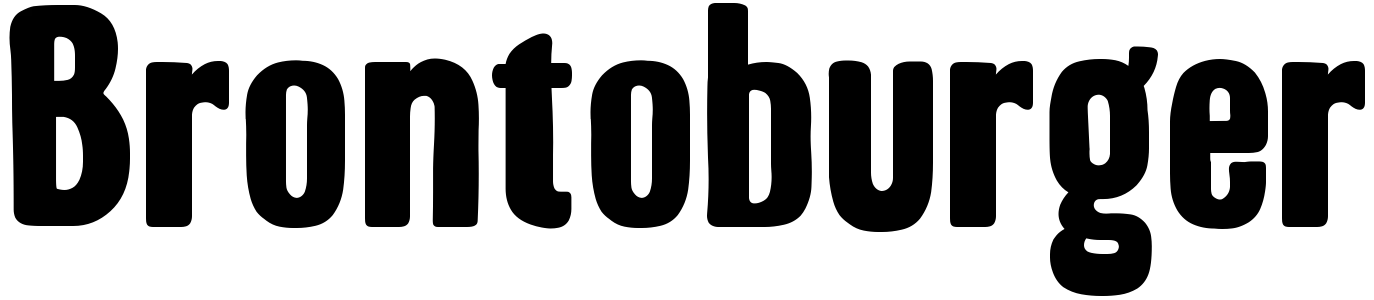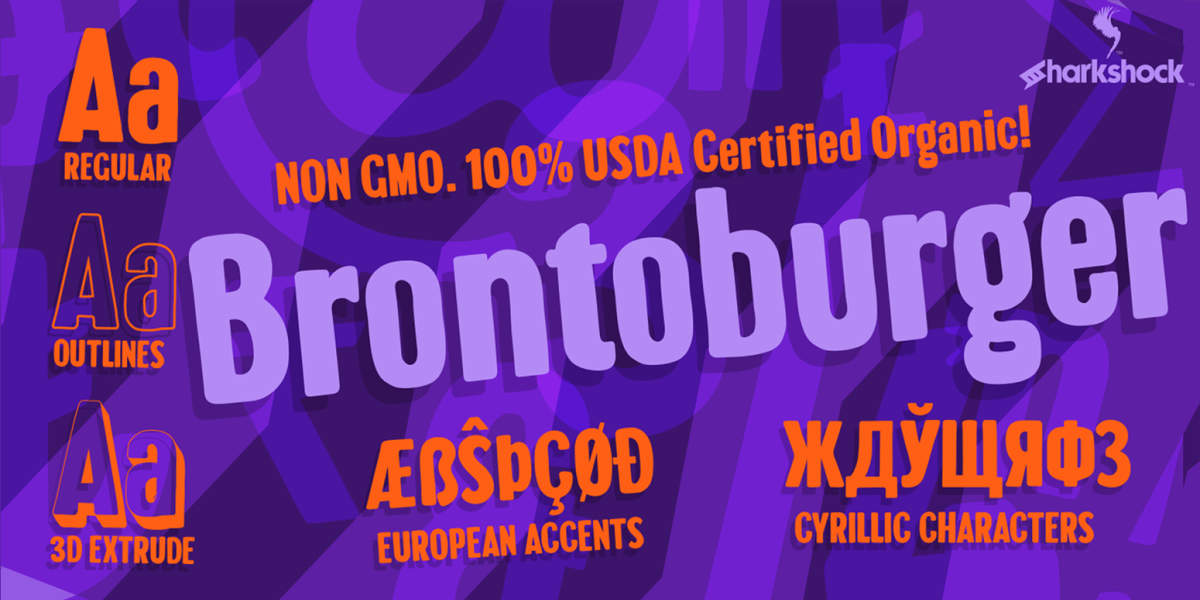
The Brontoburger font, designed by Sharkshock, is primarily classified as a Display Sans-Serif and Hand Display typeface. The font family is defined by a loose and laid-back appearance, avoiding harsh edges with its softened corners, which give it a rounded and warm, friendly look. It is inherently playful and suitable for lighthearted applications like toy packaging or posters.
Brontoburger